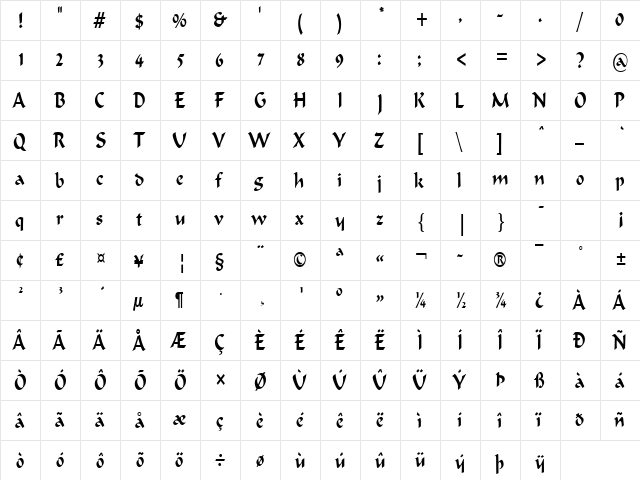
Flat Brush Thin Normal Font Preview
Design Context for Flat Brush Thin Typeface
Flat Brush Thin flows with the natural rhythm of handwritten lettering, making it ideal for designs that call for warmth and personal expression. The delicate stroke weight brings airiness and refinement to layouts.
Font Pairing: Combine Flat Brush Thin with a simple geometric sans for maximum contrast — the tension between flowing curves and clean structure is a classic typographic pairing.
Pro Tip: Pair Flat Brush Thin with a clean sans-serif for supporting text. The contrast between fluid script and geometric structure creates an elegant typographic hierarchy.